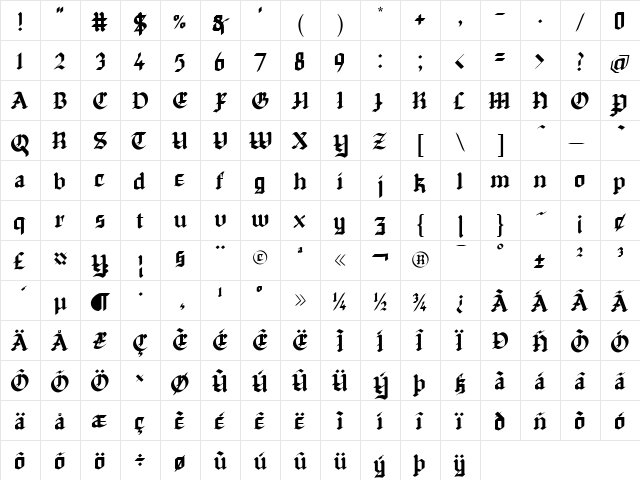
TSChapinero Blackletter
| Style | Blackletter |
| Foundry | Type Sailor |
| Designer | Type Sailor |
Design Context for TSChapinero Typeface
TSChapinero draws on the rich tradition of blackletter calligraphy, with dense, angular strokes that evoke medieval manuscripts and old-world craftsmanship.
A natural fit for music packaging, gothic editorial design, and any project that needs historical weight.
Font Pairing: Pair with a clean neutral sans-serif for body copy to let TSChapinero's character lead without overwhelming the composition.
Pro Tip: Reserve TSChapinero for display and logo use — pair it with a clean sans-serif for body copy to prevent the composition from feeling oppressive.